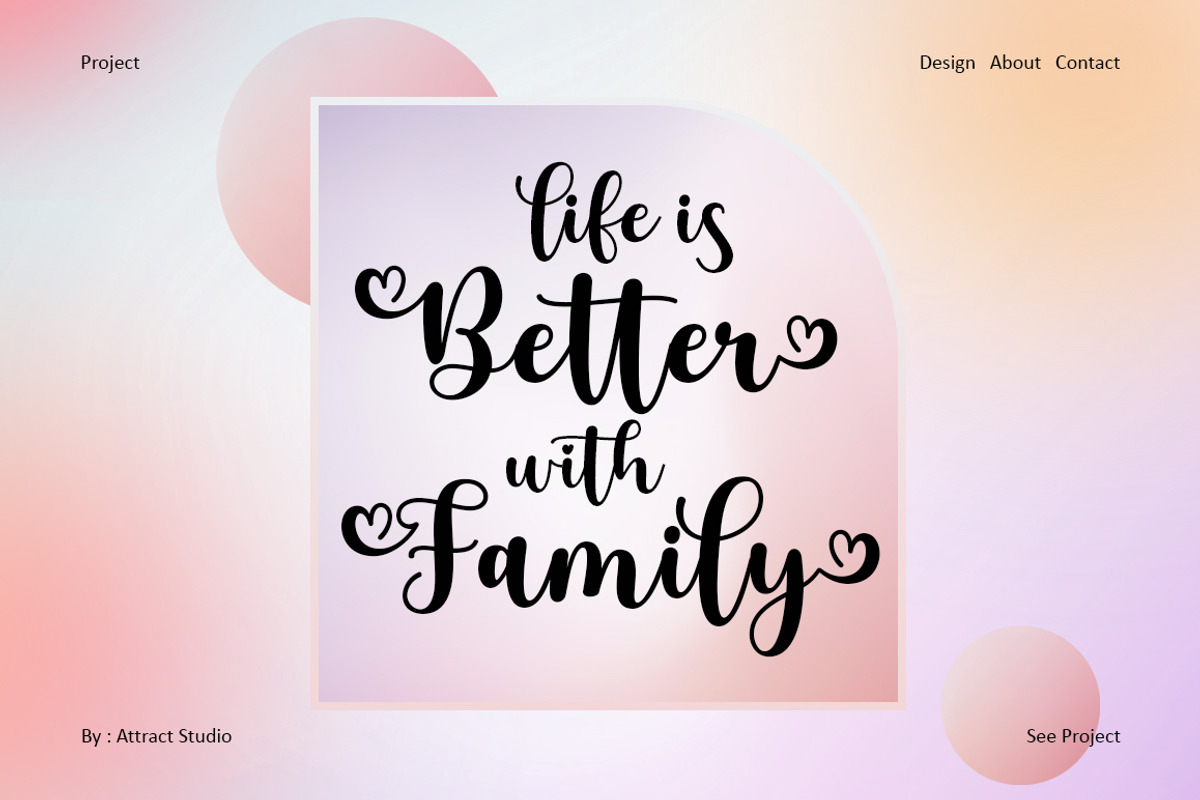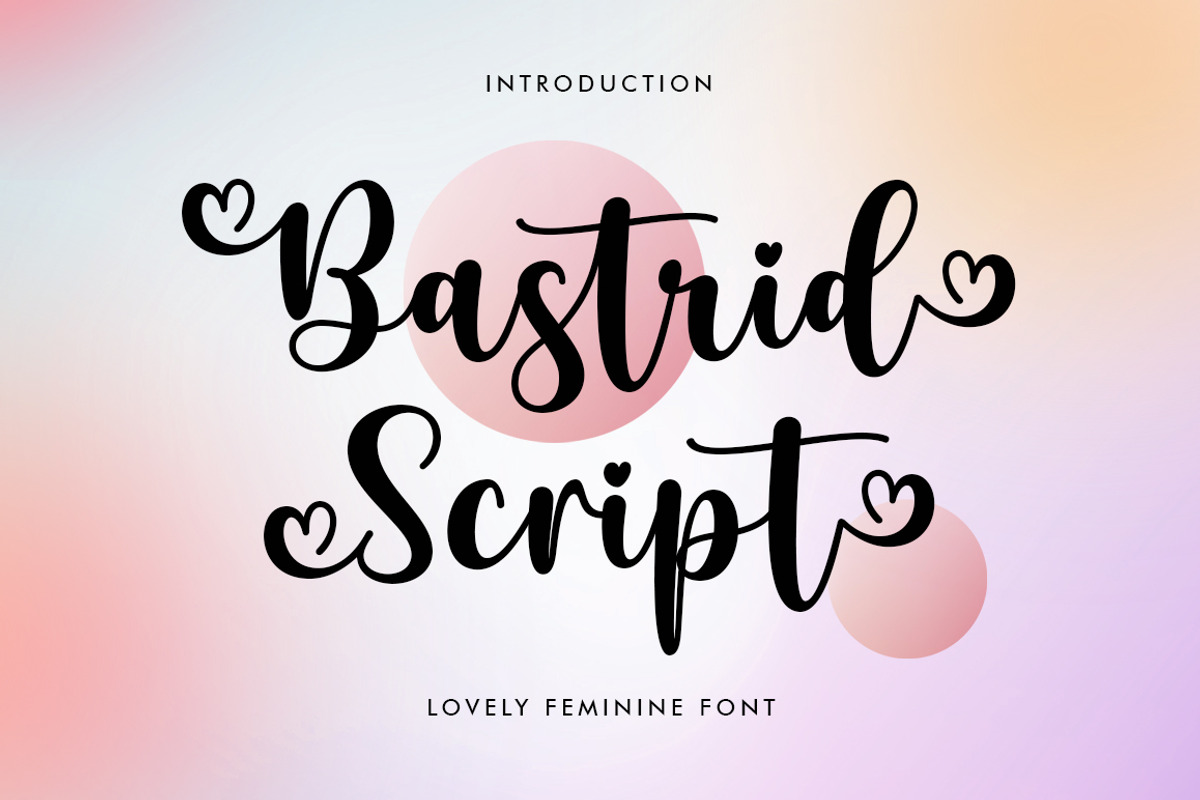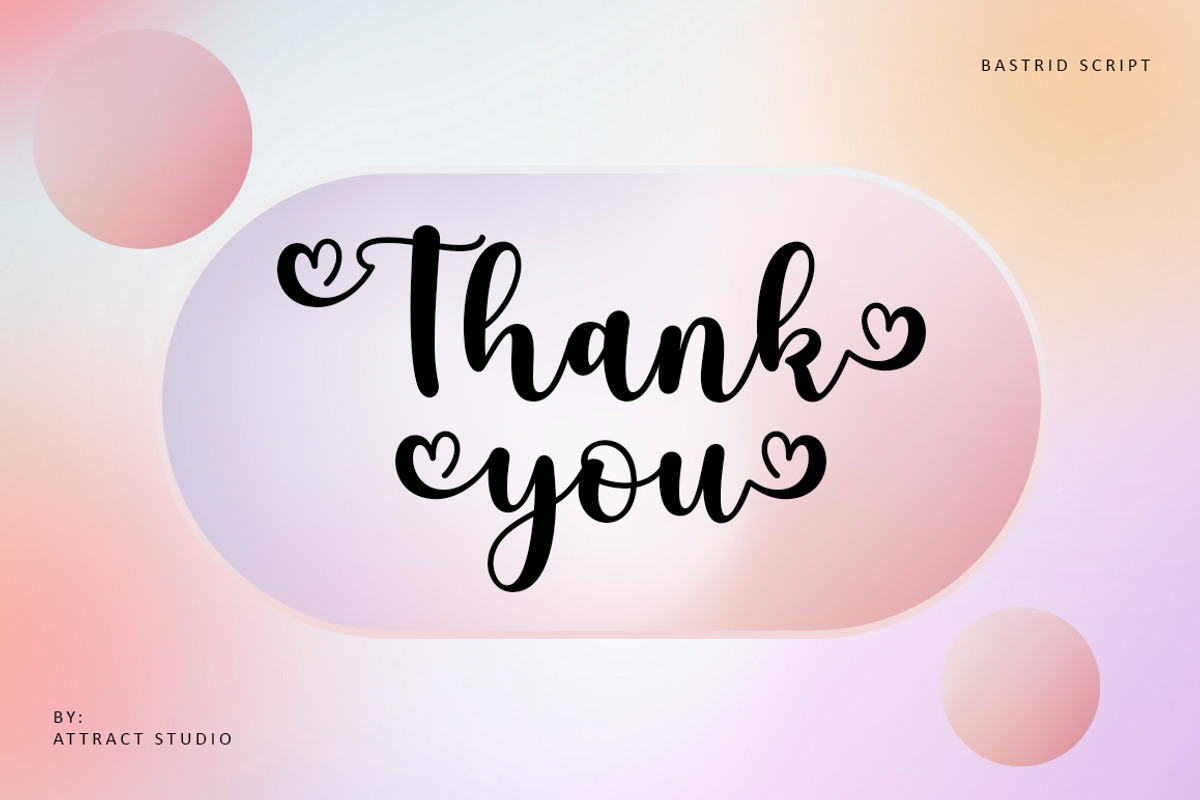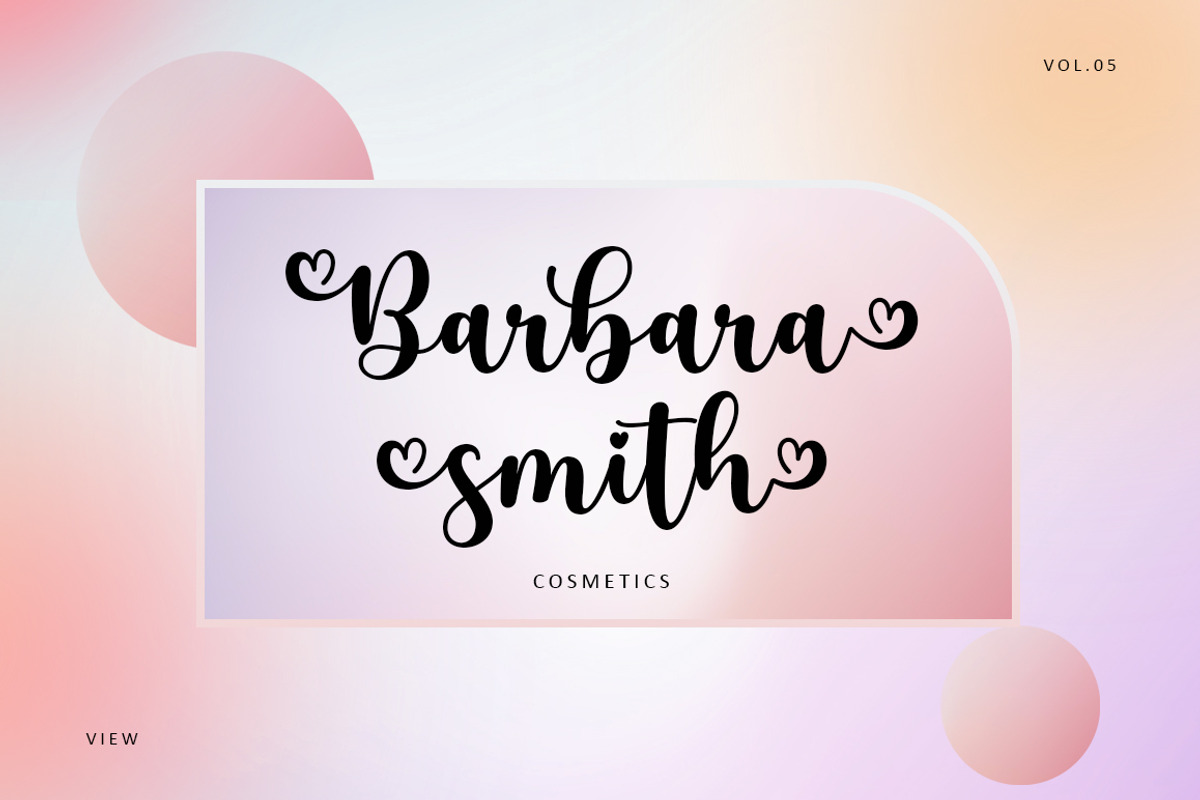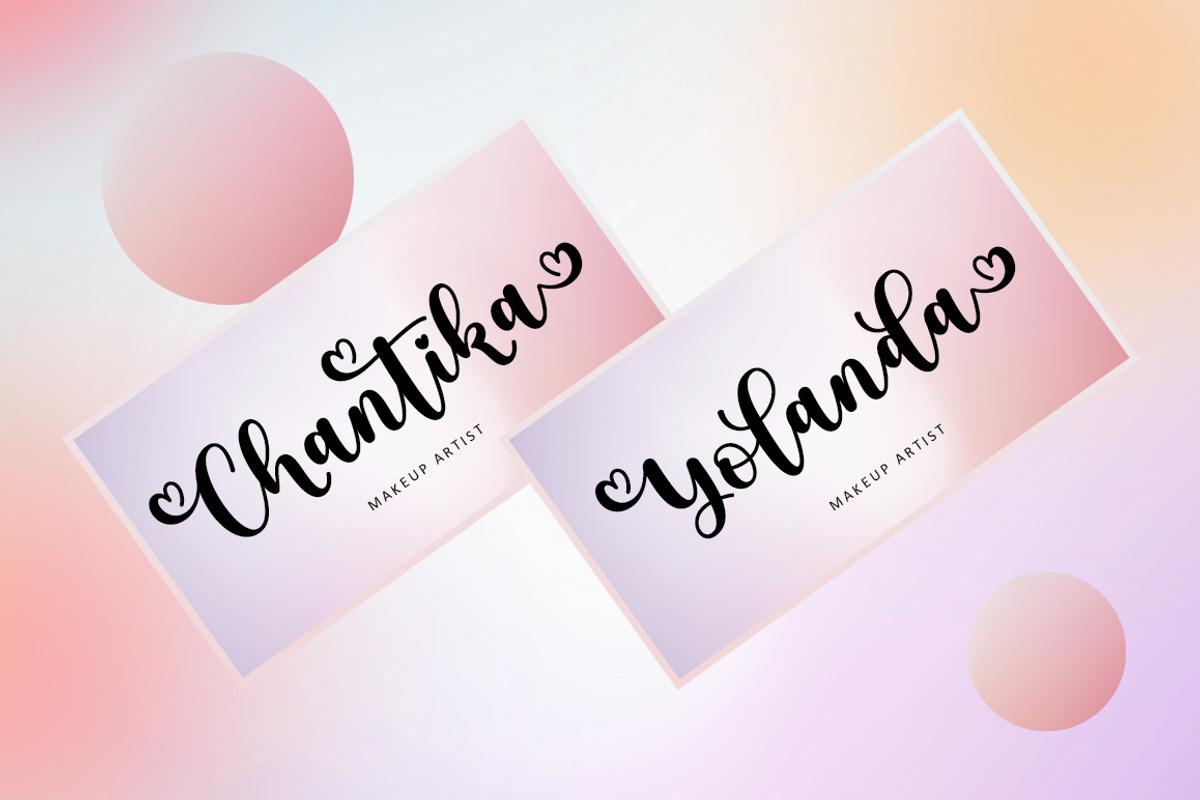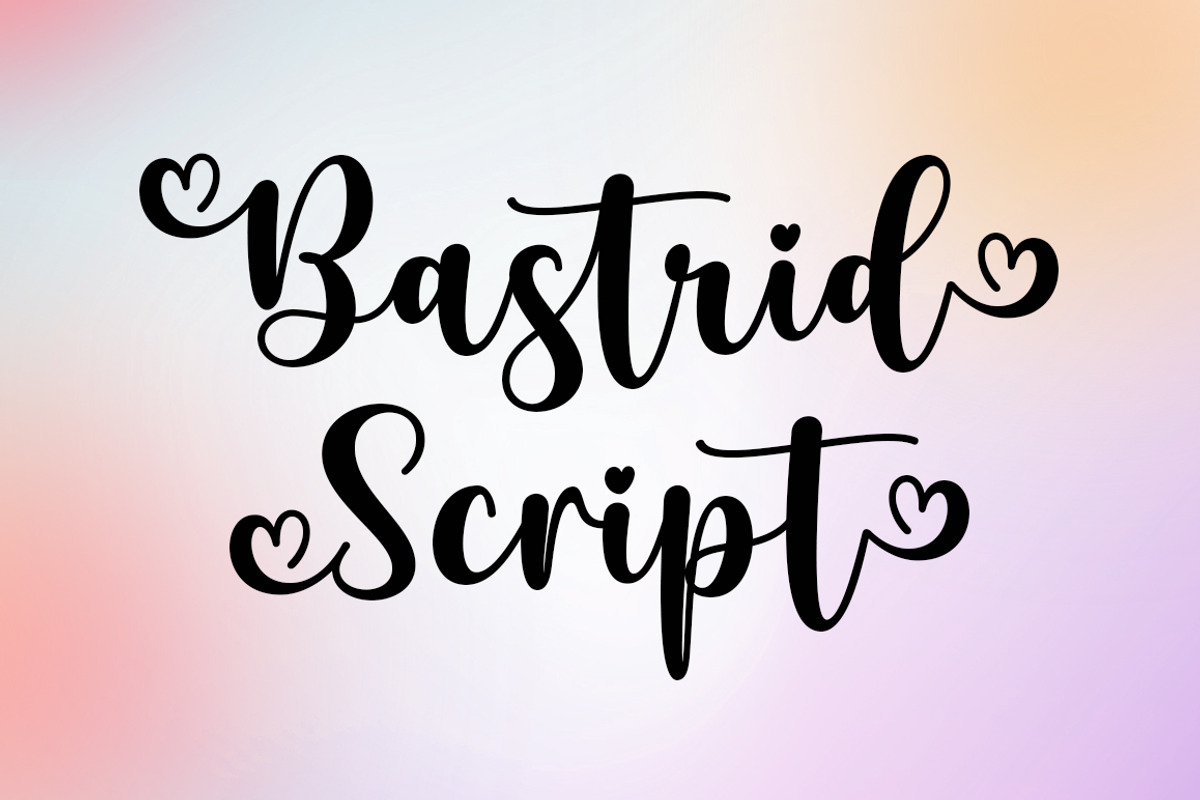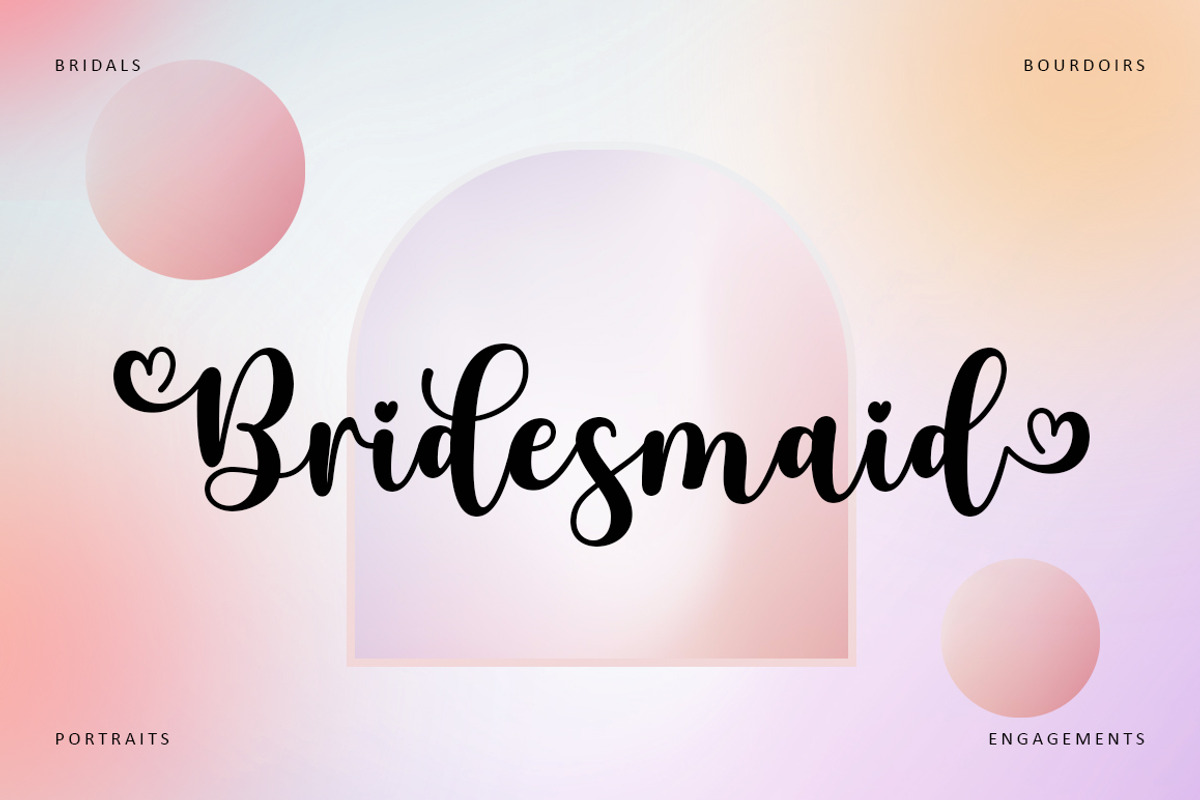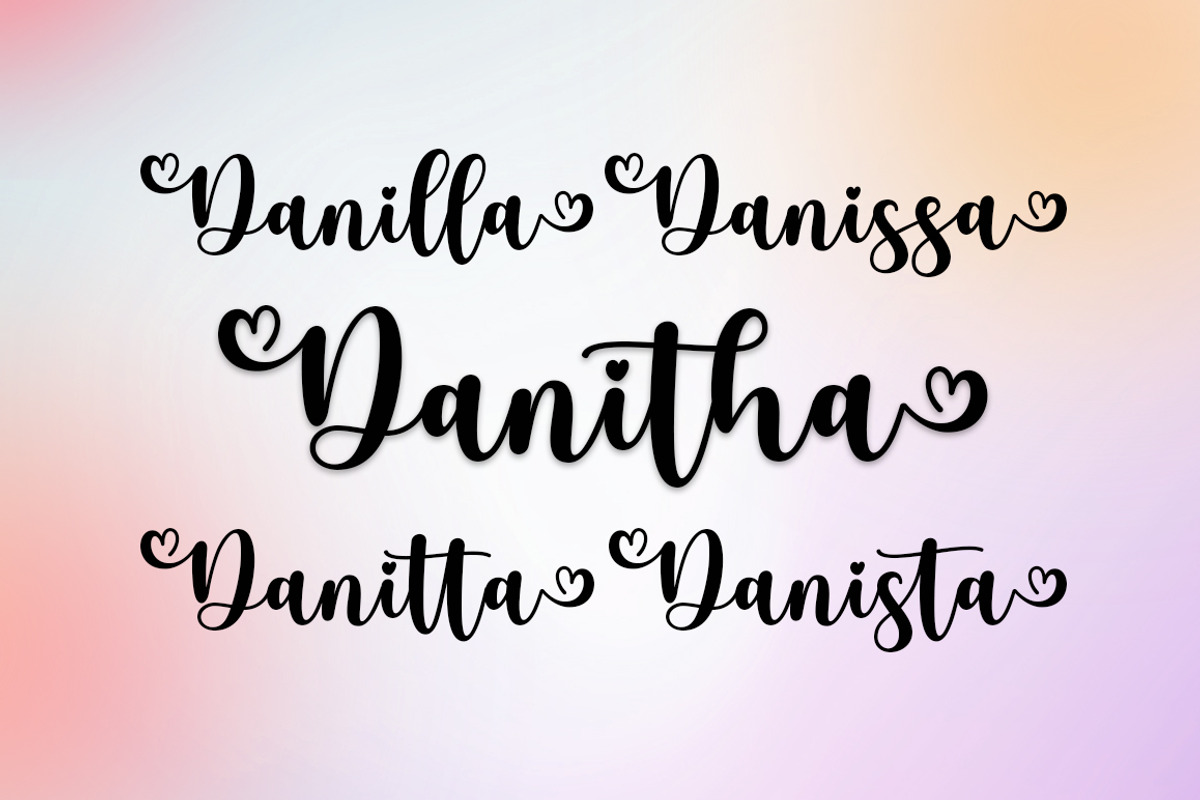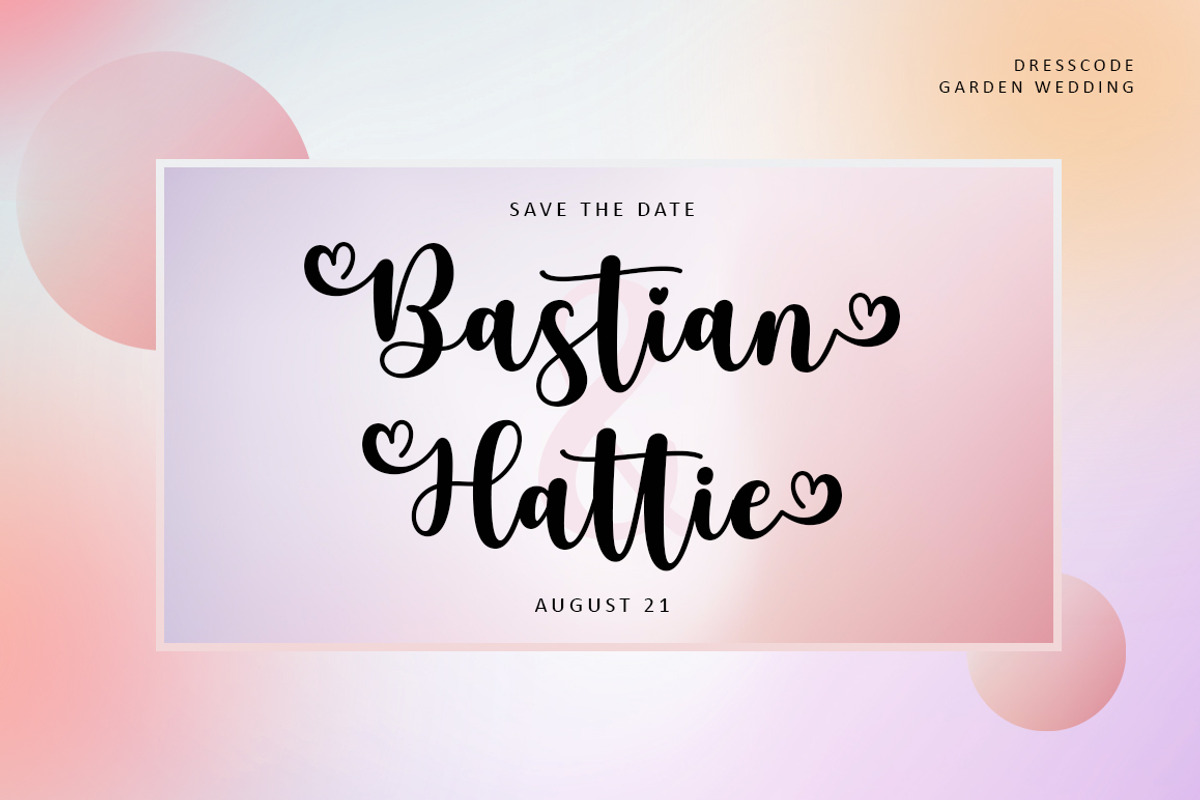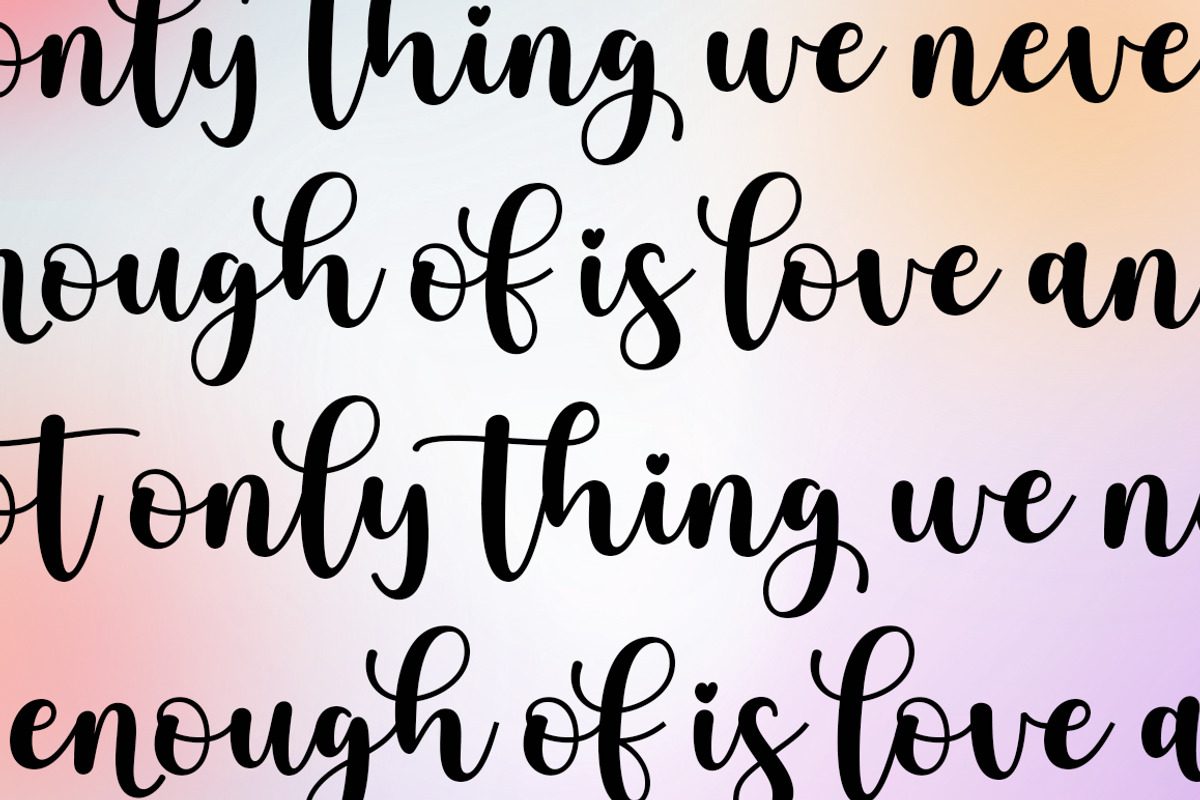
Bastrid Script
Bastrid Script is a feminine modern handwritten font, carefully handcrafted to become a true favorite. Its casual charm makes it appear wonderfully down-to-earth, readable and, ultimately, incredibly versatile. Bastrid Script will look outstanding in any context, whether it’s being used on busy backgrounds or as a standalone headline. Equipped with alternative letters for beginning and ending. and also "stylistic alternates" which makes this letter very beautiful and attractive.